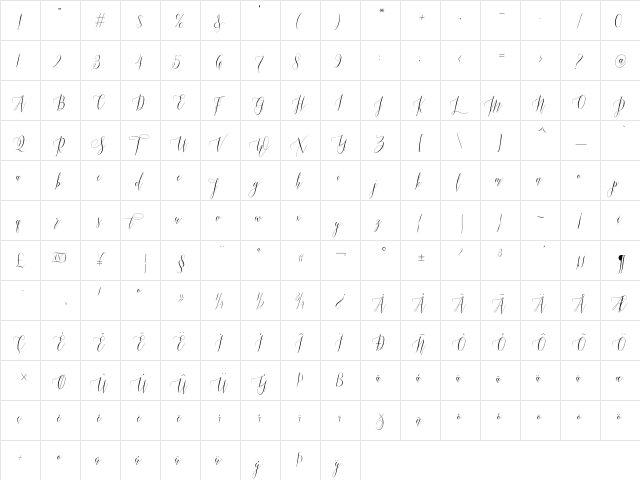
Mastura script Regular
| Foundry | JoelMaker |
| Designer | JoelMaker |
Design Context for Mastura script Typeface
Mastura script flows with the natural rhythm of handwritten lettering, making it ideal for designs that call for warmth and personal expression.
Font Pairing: Combine Mastura script with a simple geometric sans for maximum contrast — the tension between flowing curves and clean structure is a classic typographic pairing.
Pro Tip: Pair Mastura script with a clean sans-serif for supporting text. The contrast between fluid script and geometric structure creates an elegant typographic hierarchy.